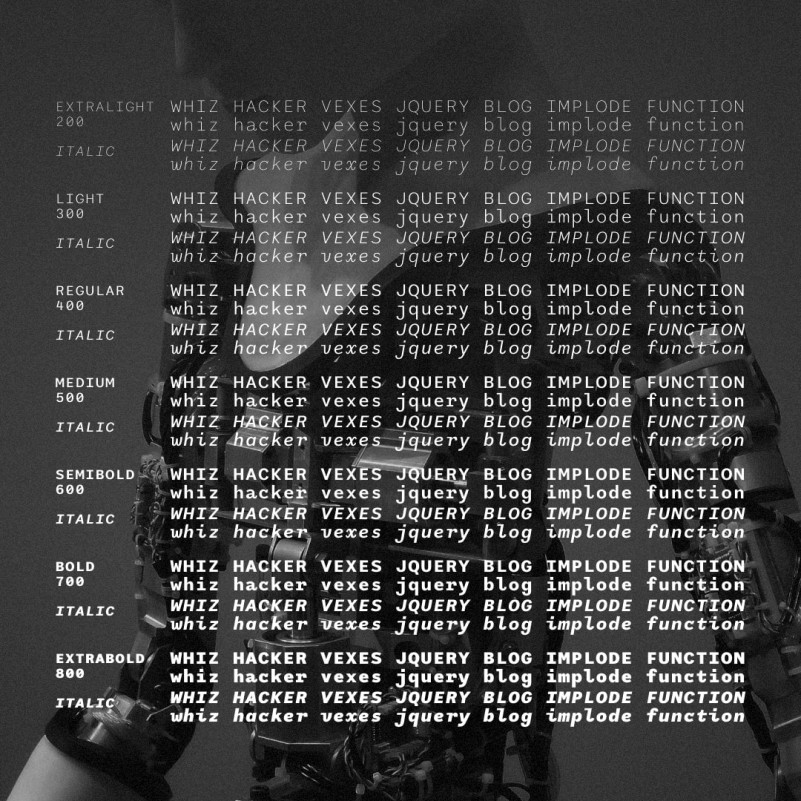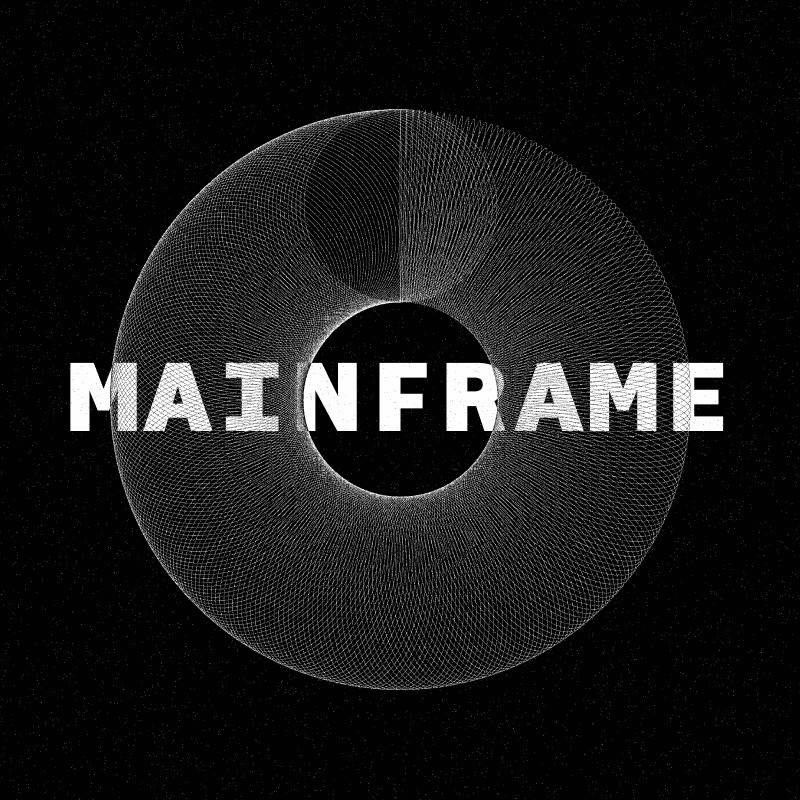
Mainframe Font
Mainframe Sans Serif Font, was created to be a relaxing monospace family. How so? The cap height is low and the spacing is generous. If you weren’t looking closely it might pass for a proportionally spaced font. Get some sweet vertical alignment going with hints of old type(writer) vibes. Pairs well with mistrust in technology. View/Download a type specimen (PDF).